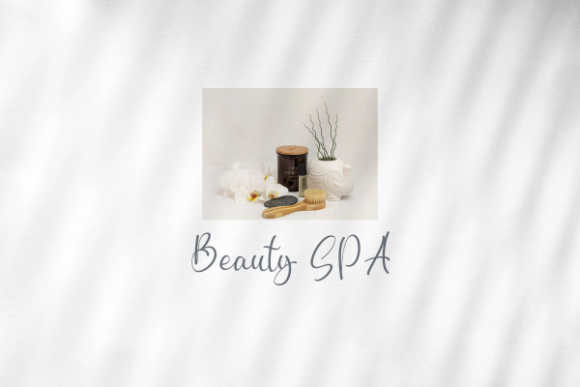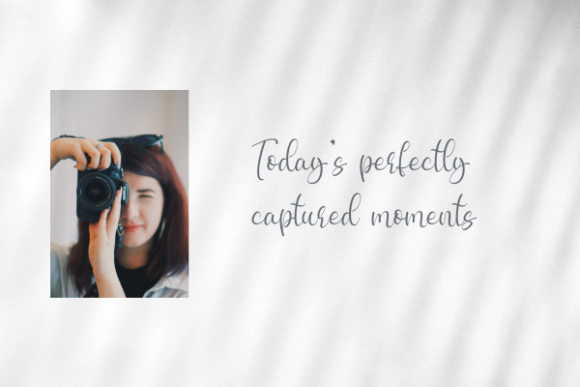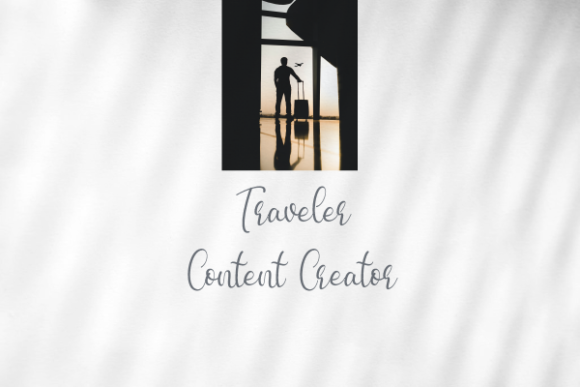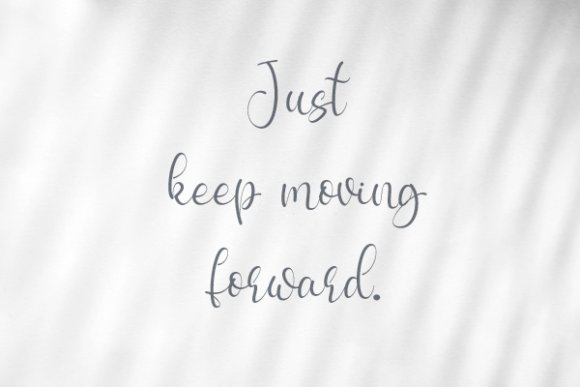
Introducing Faith Scarlet Font: The Elegant Handwritten Choice for Your Creative Projects
Are you looking for a font that exudes elegance and sophistication? Look no further than Faith Scarlet Font, a beautiful handwritten font that is perfect for a variety of design projects. Whether you’re creating wedding invitations, thank you cards, logos, or greeting cards, Faith Scarlet Font is the ideal choice for adding a touch of personalized style.
What Makes Faith Scarlet Font So Special?
Faith Scarlet Font is an elegant handwritten font that boasts a unique and stylish aesthetic. Its flowing lines and delicate curves make it perfect for designs that require a touch of sophistication and glamour. The font is highly versatile and can be used for a wide range of projects, from formal wedding invitations to casual greeting cards.
Faith Scarlet Font is particularly well-suited for wedding and event designs. Its elegant and refined appearance makes it perfect for creating beautiful wedding invitations, save-the-date cards, and thank you notes. The font’s classic and timeless look ensures that your designs will never go out of style, and its versatility allows you to use it for a variety of stationery and paper goods.
Great for Logos and Branding
Faith Scarlet Font is not just limited to stationery and paper goods. Its elegant and sophisticated appearance makes it also perfect for logos and branding. Whether you’re creating a logo for a business or a personal brand, Faith Scarlet Font is a great choice for adding a touch of elegance and refinement.
Why Choose Faith Scarlet Font?
So why choose Faith Scarlet Font over other fonts? Here are just a few reasons:
- Elegant and sophisticated: Faith Scarlet Font boasts a unique and stylish aesthetic that is perfect for designs that require a touch of glamour and sophistication.
- Highly versatile: The font can be used for a wide range of projects, from formal wedding invitations to casual greeting cards.
- Easy to read: Faith Scarlet Font is highly legible, making it perfect for designs that require a clear and easy-to-read font.
- Unique and stylish: Faith Scarlet Font has a unique and stylish aesthetic that will set your designs apart from the rest.
How to Use Faith Scarlet Font
- Pair it with other fonts: Faith Scarlet Font pairs well with other fonts, such as serif and sans-serif fonts. Experiment with different font combinations to create a unique and stylish look.
- Use it for headings and titles: Faith Scarlet Font is perfect for headings and titles. Use it to add a touch of elegance and sophistication to your designs.
- Experiment with different colors: Faith Scarlet Font looks great in a variety of colors. Experiment with different colors to find the one that works best for your design.
Faith Scarlet Font is a beautiful and elegant handwritten font that is perfect for a variety of design projects. Its unique and stylish aesthetic makes it perfect for adding a touch of sophistication and glamour to your designs. Whether you’re creating wedding invitations, logos, or greeting cards, Faith Scarlet Font is the ideal choice. So why wait? Download Faith Scarlet Font today and start creating stunning designs that will leave a lasting impression.
With its highly legible and versatile design, Faith Scarlet Font is sure to become a favorite among designers and crafters. Its elegant and refined appearance makes it perfect for a wide range of projects, from formal weddings to casual events. So if you’re looking for a font that will add a touch of elegance and sophistication to your designs, look no further than Faith Scarlet Font.